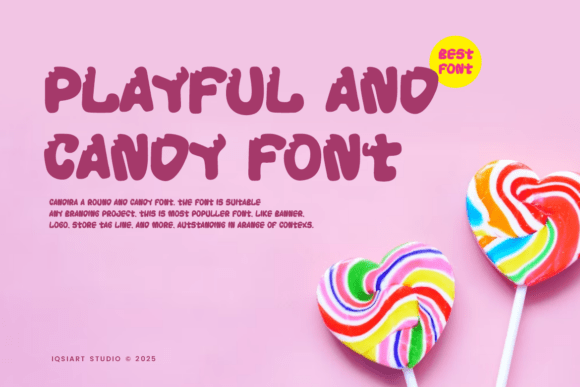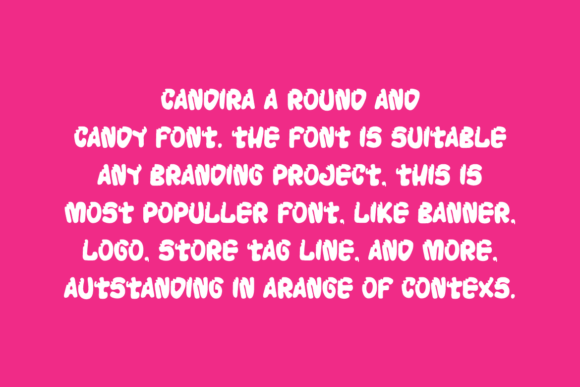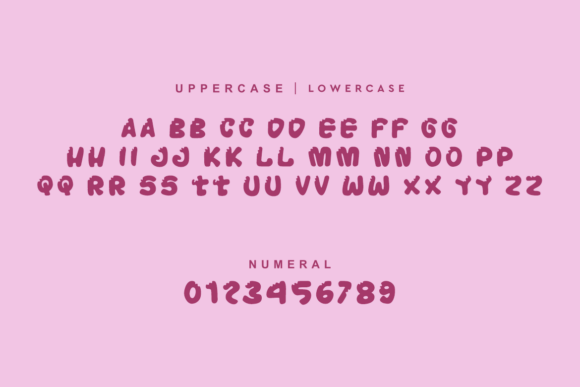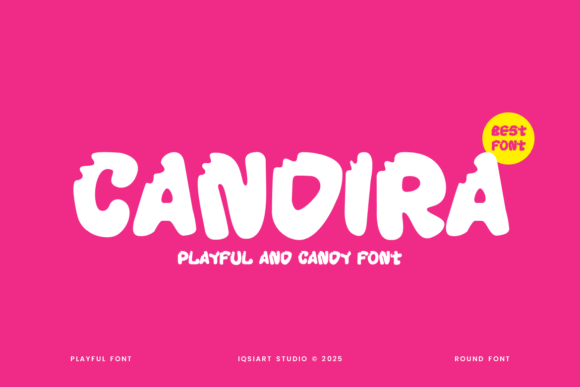
Introduction to Candira Font
Candira is a bold, bouncy, and irresistibly sweet display font that captures the fun of candy and childhood.
Its thick, squishy letterforms and quirky style make it a perfect choice for kids’ products, packaging, party invitations, playful branding, and anything that needs a touch of sugary charm Add instant joy to your designs with this candy-coated font.
Key Features of Candira Font
Why Choose Candira Font?
Candira Font offers exceptional quality and versatility, making it a valuable addition to your design toolkit. Whether you’re creating for personal projects or commercial use, Candira Font delivers professional results.